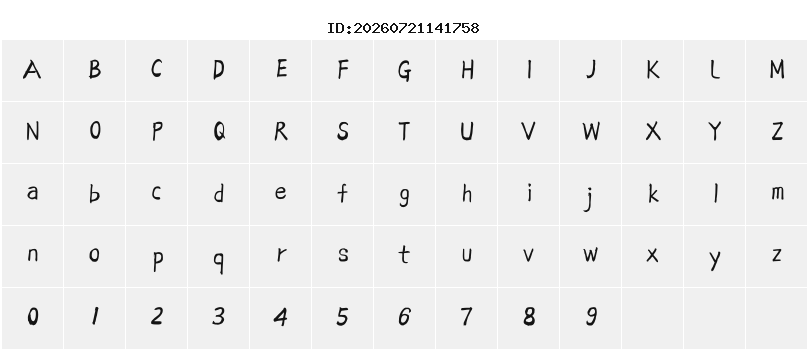
• Font Name: 方正字迹-吕建德字体
• Full Font Name: 方正字迹-吕建德字体
About 方正字迹-吕建德字体.ttf
方正字迹-吕建德字体.ttf is a modern, elegant sans-serif font designed for ultimate readability and visual harmony. Perfect for branding, headlines, web design, and print materials.